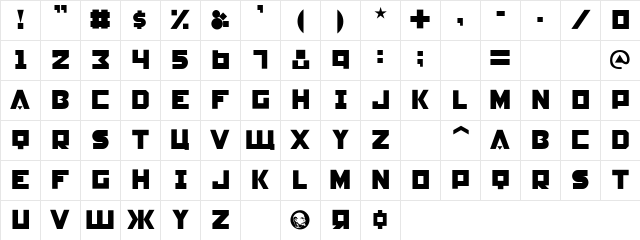
Constructivist-Square Roman Free Font
Constructivist-Square Roman
Design Context for Constructivist-Square
Constructivist-Square is a composed and adaptable typeface that performs quietly and consistently across a wide range of design contexts.